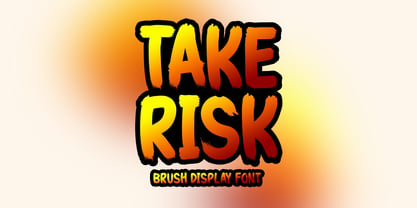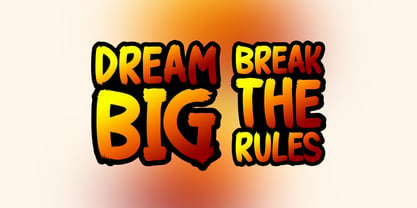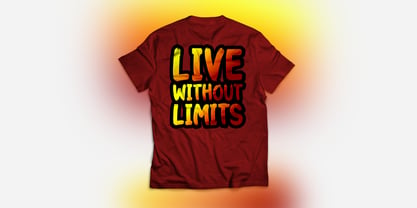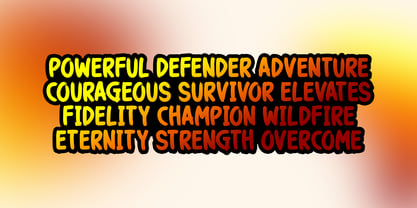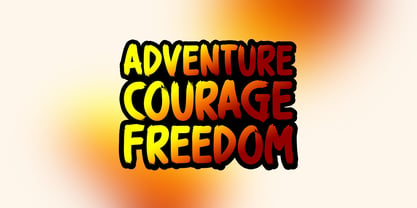
Take Risk
by Seemly Fonts
The Take Risk Font Family was designed by Md. Sohail Bhuiyan and published by Seemly Fonts. Take Risk contains 1 styles. More about this family
Take Risk is a striking brush-style display font with an expressive, handcrafted edge. Its bold strokes and textured details make it an excellent choice for eye-catching designs, from t-shirts and posters to logos, music covers, flyers, and web headers. Perfect for both digital and print, Take Risk adds a raw, artistic energy that inspires creativity and makes every project stand out.
Designers: Md. Sohail Bhuiyan
Foundry: Seemly Fonts